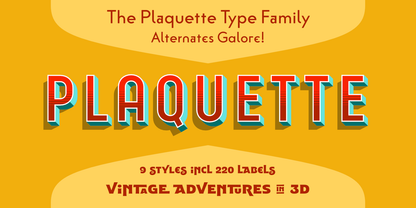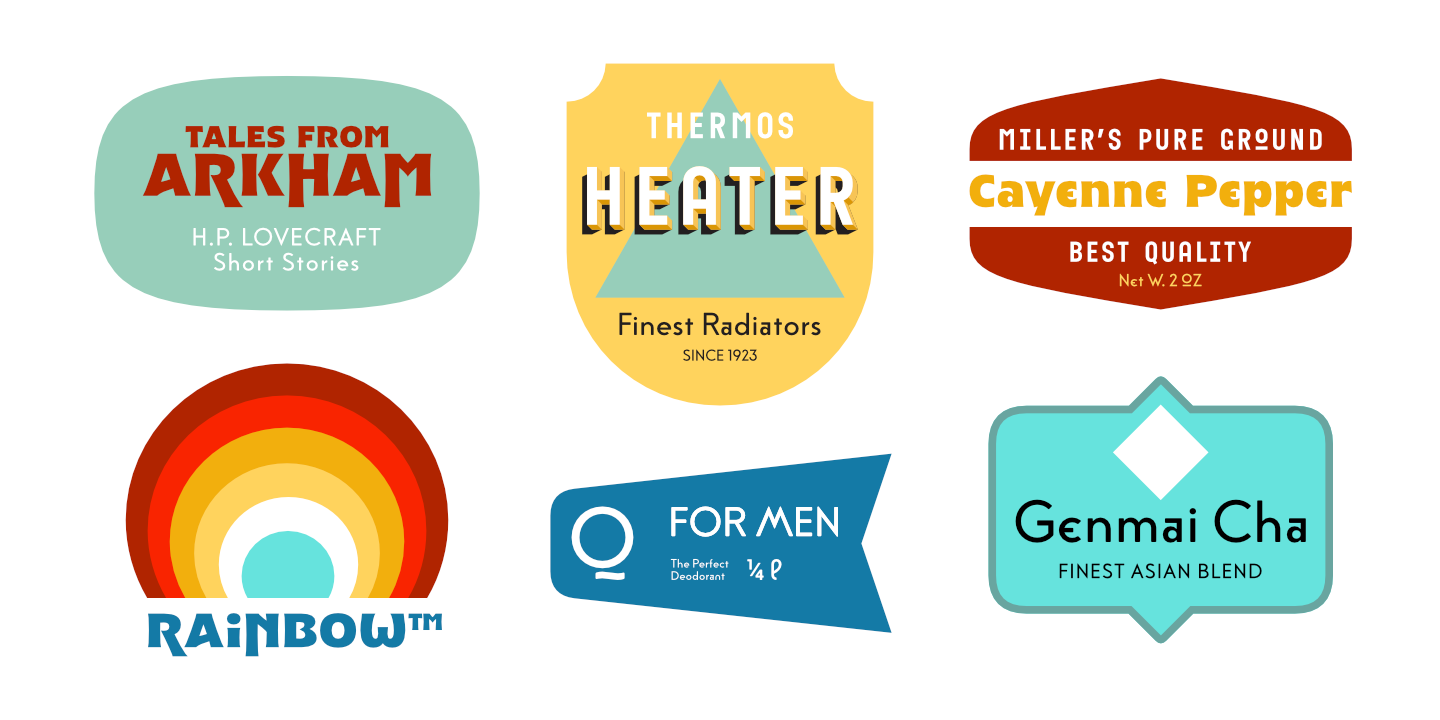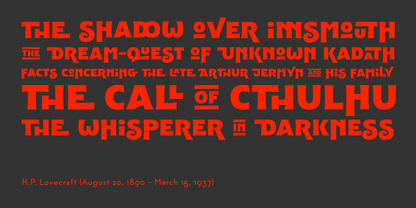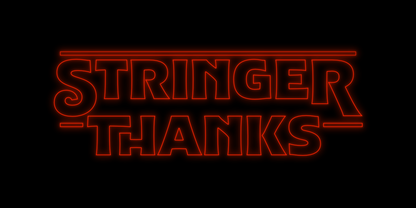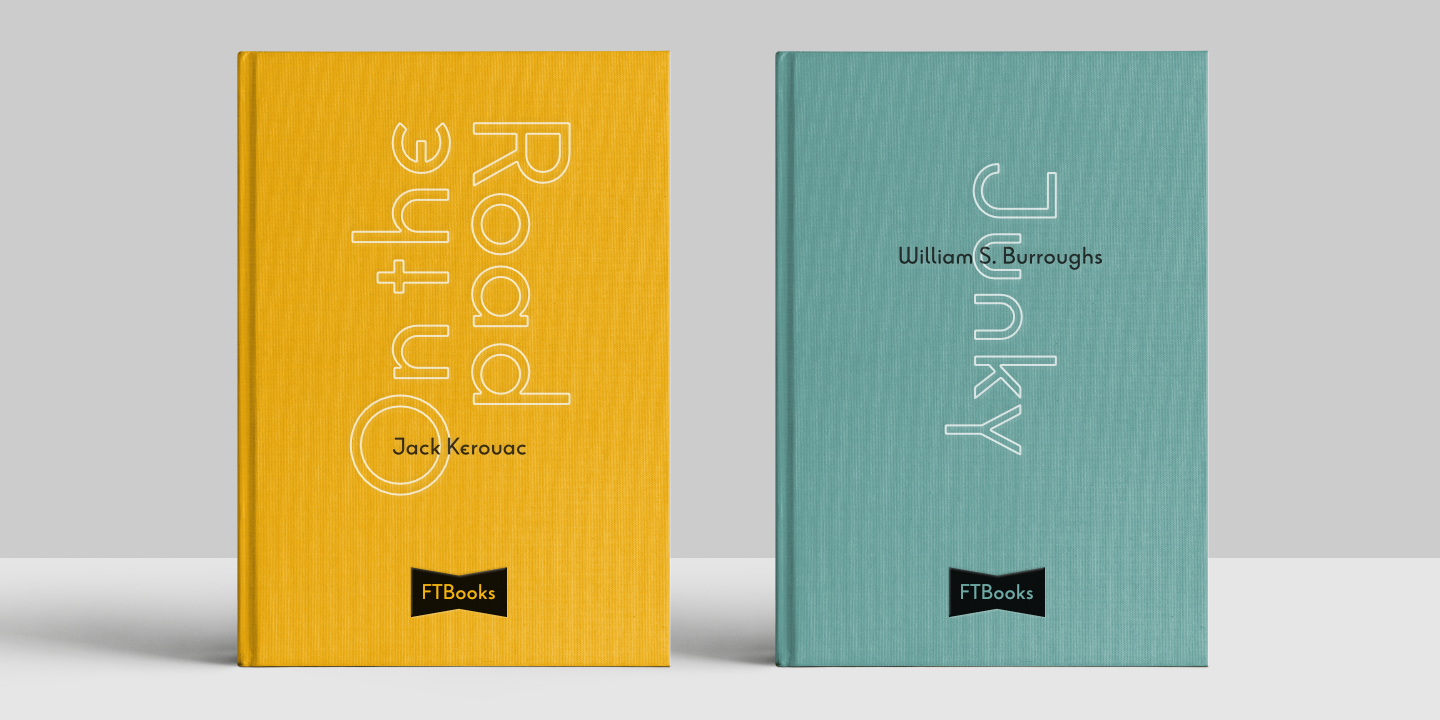
The ‘Plaquette’ family is a collection of retro fonts ranging from Victorian to Bauhaus to the sixties. They are all equipped with a load of OpenType features such as alternates, catchwords, stylistics sets and others.
Plaquette Lovecraft: A vintage typeface with some sweet discretionary ligatures to make your typography exciting. Take a look at the many alternates.